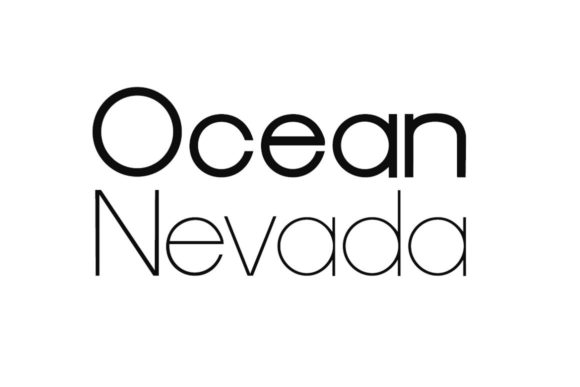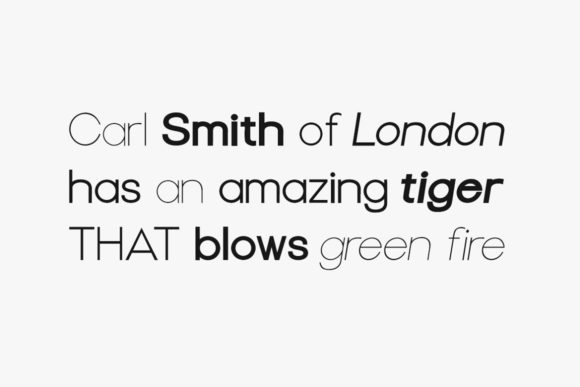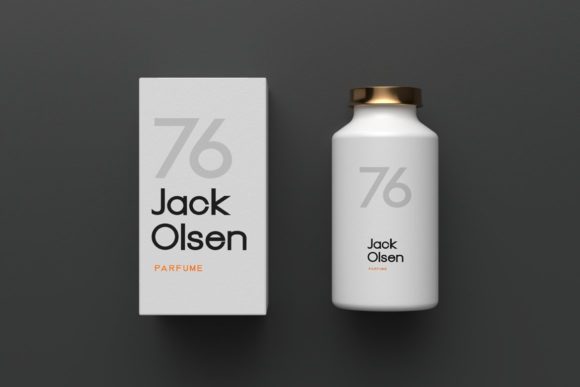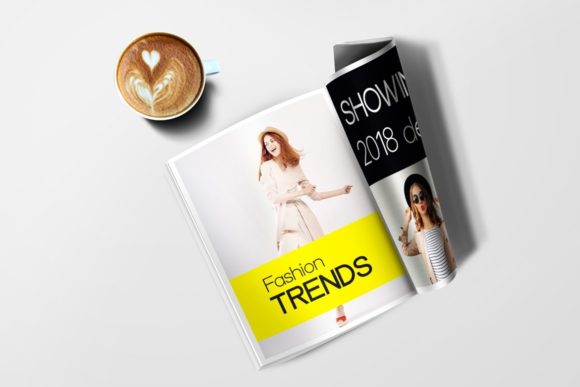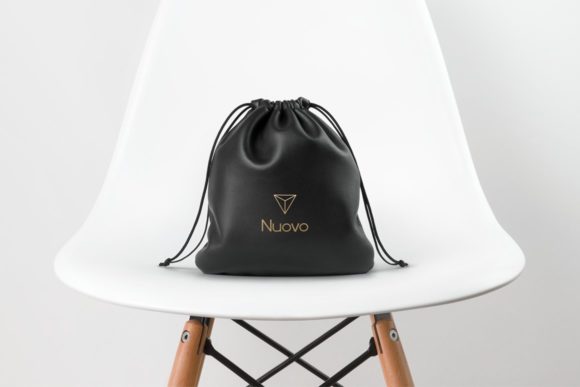
Introducing Focus Grotesk: The Ultimate Geometric Sans-Serif Font
In the world of typography, a good font can make all the difference in the effectiveness of a design. For designers and crafters looking for a versatile and authentic geometric sans-serif typeface, Focus Grotesk is an excellent choice. Designed from handmade geometrical shapes, Focus Grotesk is a modern font that is perfect for a wide range of applications, from body text and headlines to logo design, marketing graphics, and branding purposes.
The Story Behind Focus Grotesk
Focus Grotesk is a carefully crafted font that draws inspiration from geometric shapes. Its design is rooted in the principles of simplicity, legibility, and versatility. The font’s geometric construction gives it a clean and modern look that is both visually appealing and highly functional. Whether you’re working on a print project, a website, or a marketing campaign, Focus Grotesk provides a solid foundation for your typography needs.
Key Features of Focus Grotesk
• Geometric Construction: Focus Grotesk is built from basic geometric shapes, giving it a distinctive and authentic look.
• Sans-Serif Design: The font features a clean sans-serif design, making it highly legible in various contexts.
• Versatility: Focus Grotesk is suitable for a wide range of applications, including body text, headlines, logo design, and marketing graphics.
• Print and Digital Friendly: The font is optimized for both print and digital use, ensuring consistent performance across different mediums.
Uses of Focus Grotesk
Focus Grotesk’s versatility makes it an ideal choice for various design projects. Here are some of the ways you can use Focus Grotesk:
• Body Text: Its clear and legible design makes Focus Grotesk perfect for body text in books, articles, and websites.
• Headlines: The font’s geometric construction and clean lines make it a great choice for headlines and titles.
• Logo Design: Focus Grotesk’s unique look can be used to create memorable and impactful logos.
• Marketing Graphics: The font is well-suited for marketing materials such as brochures, posters, and flyers.
• Branding: Focus Grotesk can be used to create a consistent brand identity across various platforms.
Benefits of Using Focus Grotesk
By choosing Focus Grotesk for your design projects, you can enjoy several benefits:
• Consistency: The font’s geometric design ensures consistency across different applications.
• Legibility: Focus Grotesk’s clear and simple design makes it highly legible, even at small sizes.
• Versatility: The font’s versatility allows you to use it for a wide range of projects, from print to digital.
• Uniqueness: Focus Grotesk’s authentic geometric look sets it apart from more traditional sans-serif fonts.
Tips for Using Focus Grotesk Effectively
To get the most out of Focus Grotesk, consider the following tips:
• Experiment with Sizes: Focus Grotesk performs well at various sizes, so experiment with different sizes to find the best fit for your project.
• Combine with Other Fonts: While Focus Grotesk is versatile on its own, it can also be paired with other fonts to create interesting contrasts.
• Pay Attention to Line Spacing: Ensure adequate line spacing to improve readability, especially for body text.
• Use Bold Weights for Emphasis: The bold weights of Focus Grotesk can be used to draw attention to headlines or key information.
Author designova
Focus Grotesk is a powerful and versatile geometric sans-serif font that is perfect for designers and crafters looking for a reliable and authentic typeface. Its geometric construction, clean design, and wide range of applications make it an excellent choice for various projects. Whether you’re working on a print project, a website, or a marketing campaign, Focus Grotesk provides a solid foundation for your typography needs. With its unique look and high legibility, Focus Grotesk is sure to become a staple in your font collection.